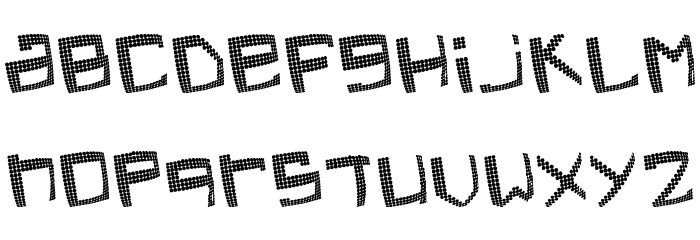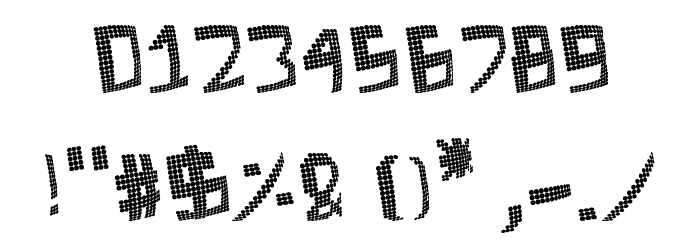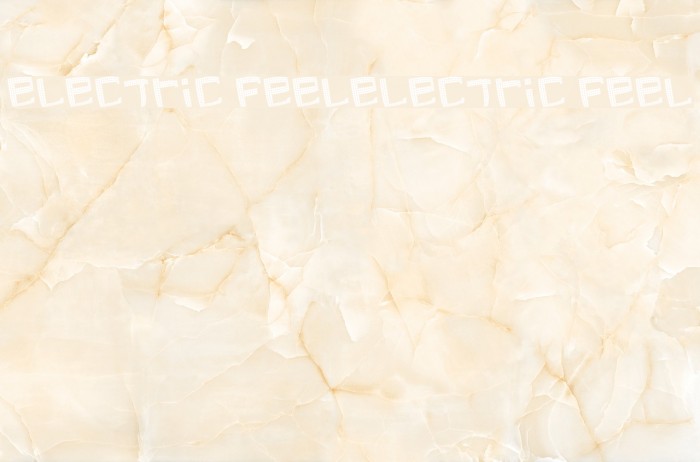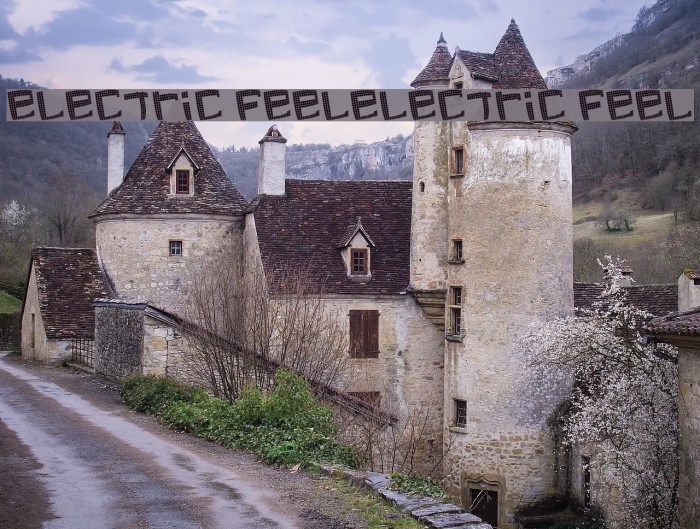
electric feel Font
This font features a unique, pixelated design that gives it a digital, retro feel. Each character is composed of small, square dots arranged in a grid-like pattern, creating a distinct texture reminiscent of early digital displays or LED screens. The letters are slightly slanted, adding a dynamic, forward-moving energy to the text. This style is consistent across uppercase, lowercase, numbers, and special characters, maintaining a cohesive look. The font's playful yet structured appearance makes it suitable for projects that aim to evoke nostalgia or a tech-inspired aesthetic.
A pixelated, retro-style font with a dynamic slant and digital feel.
- Proposed Projects: Ideal for digital art, retro-themed designs, tech-related branding, and video game graphics.
- Overall Style: Retro, Digital
- Use Case: Logos, Posters, Digital Art